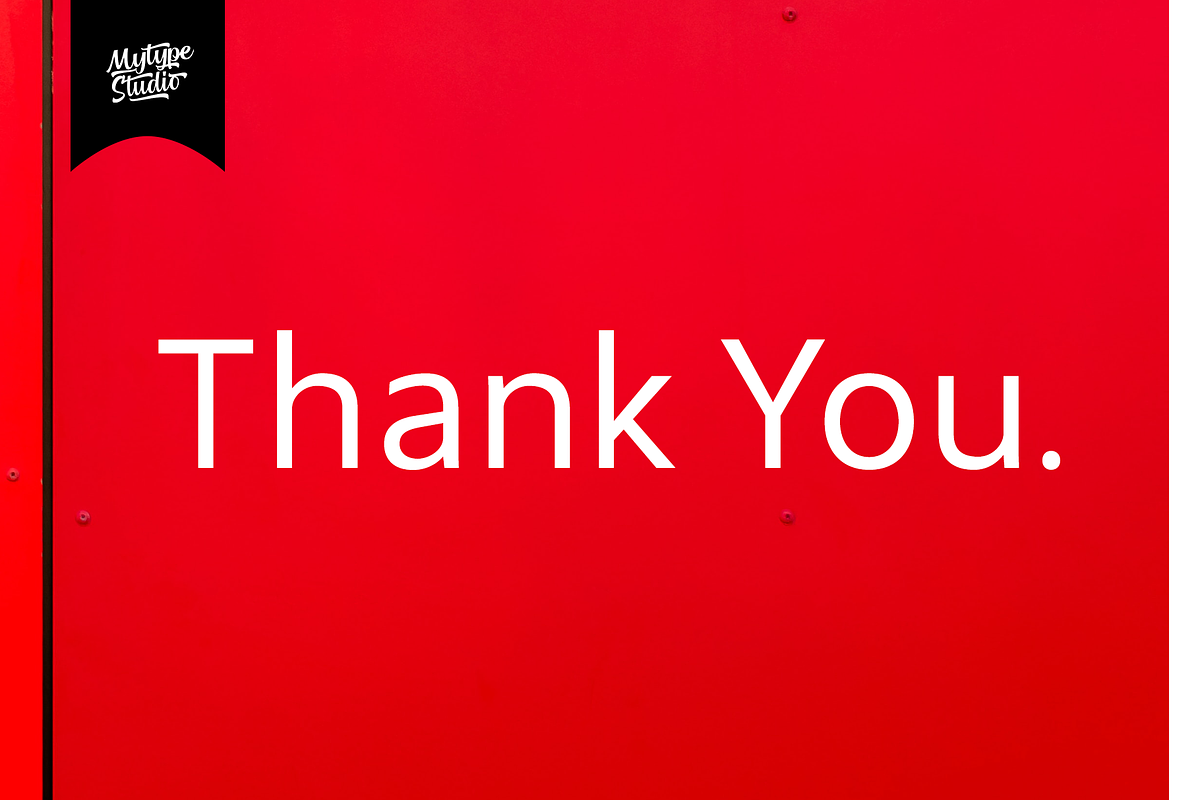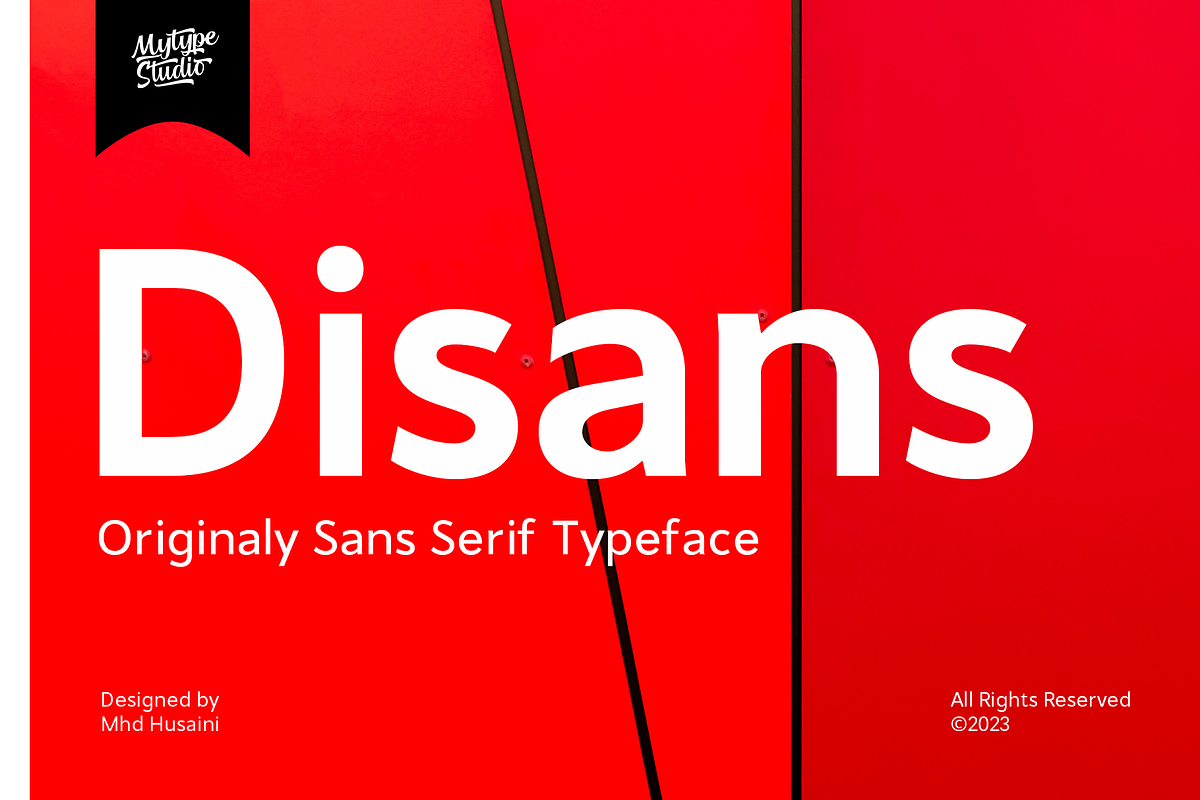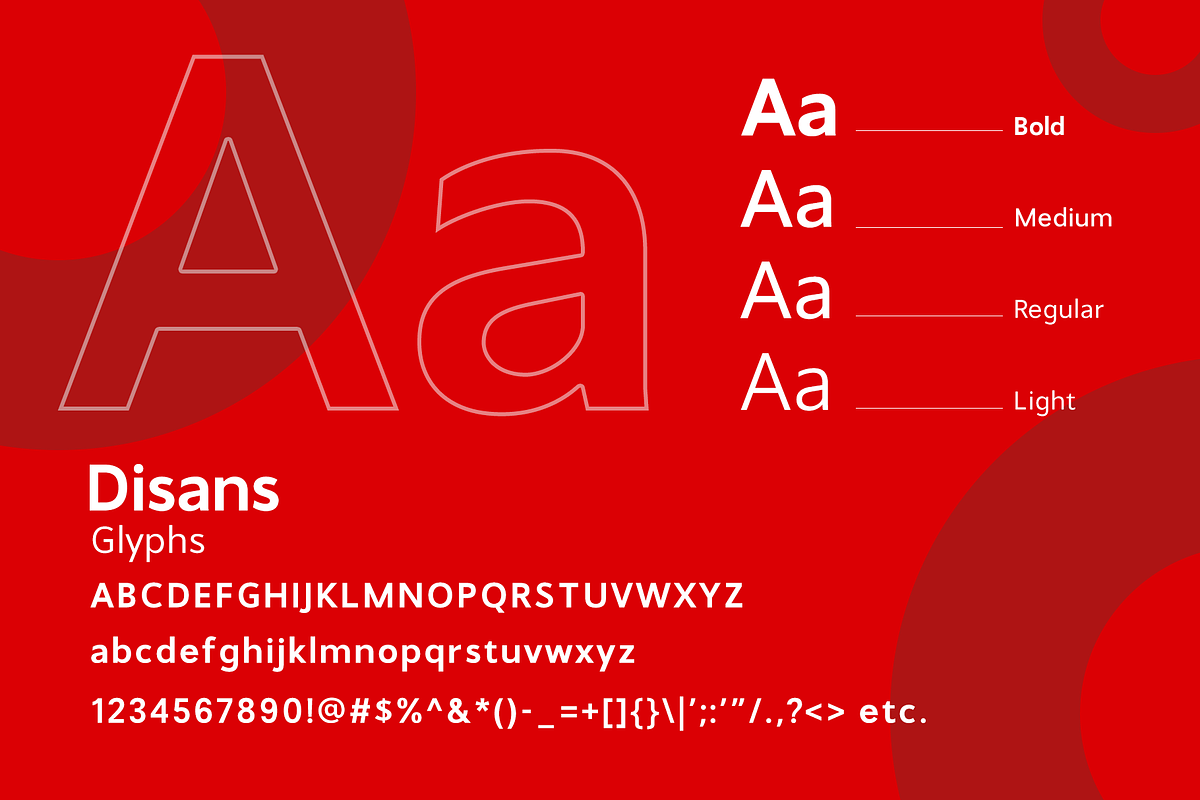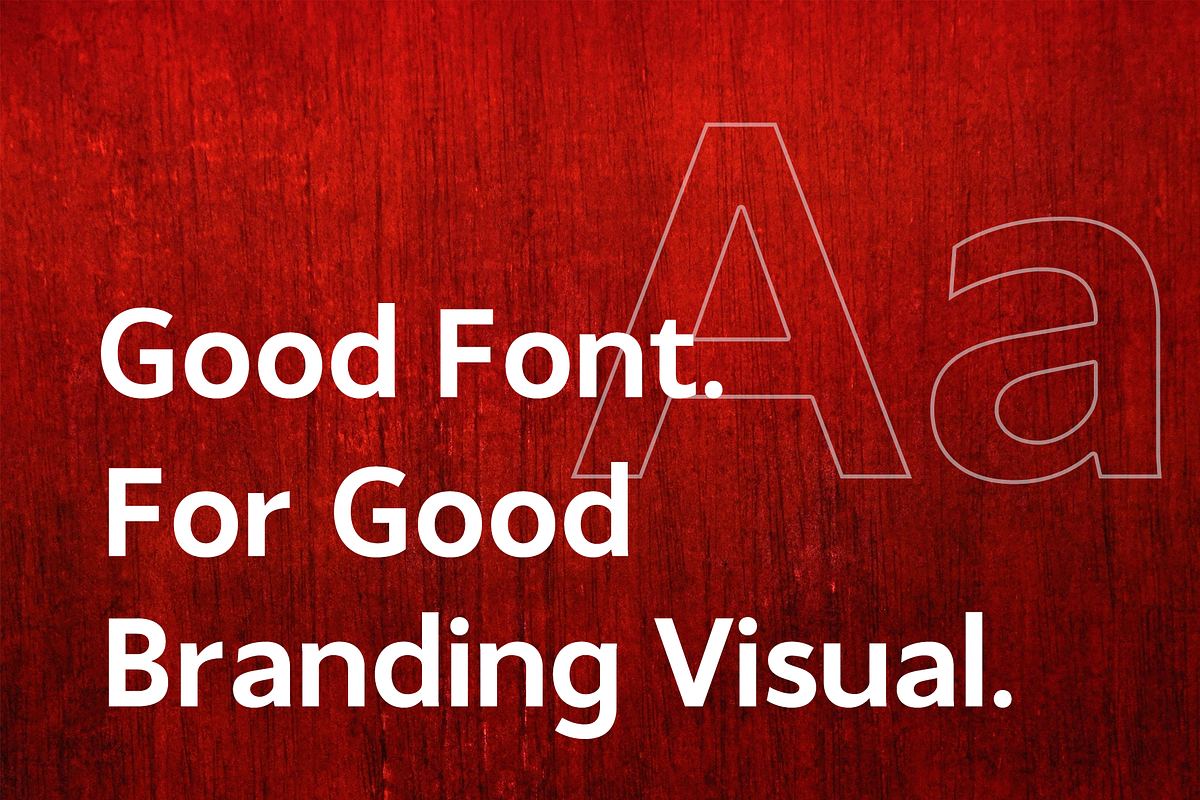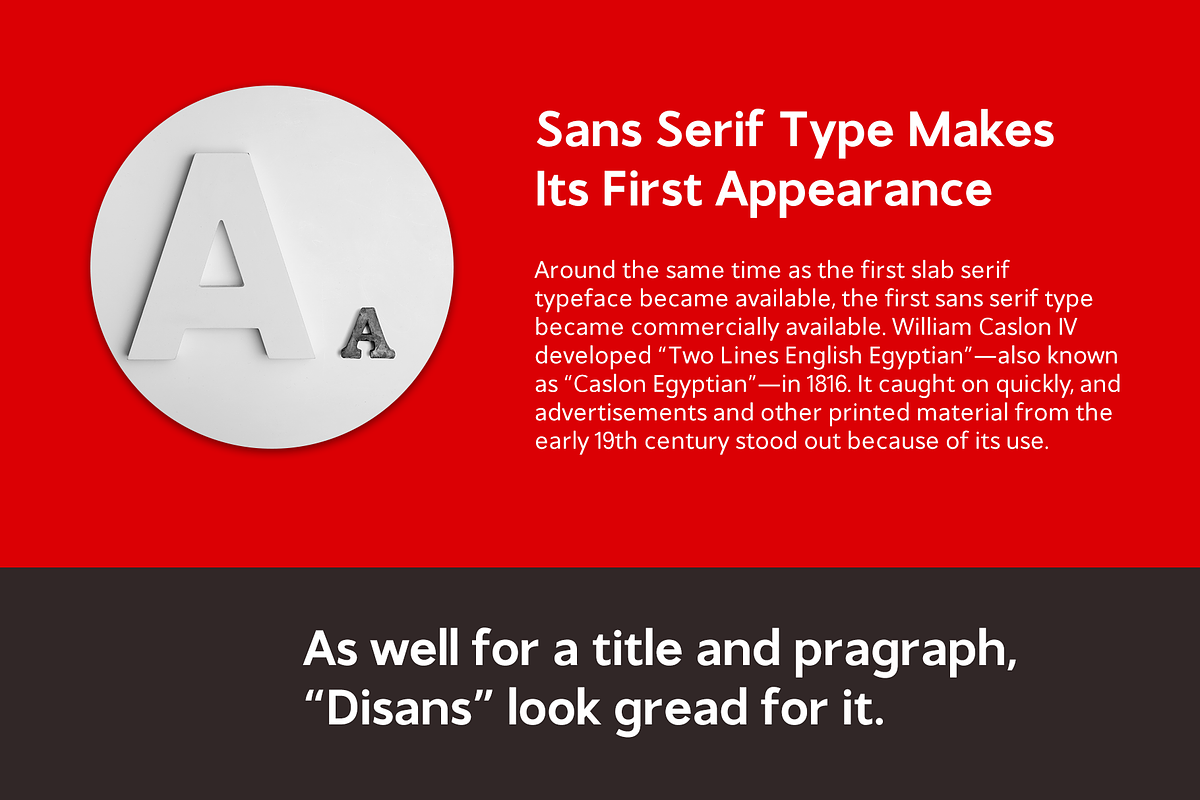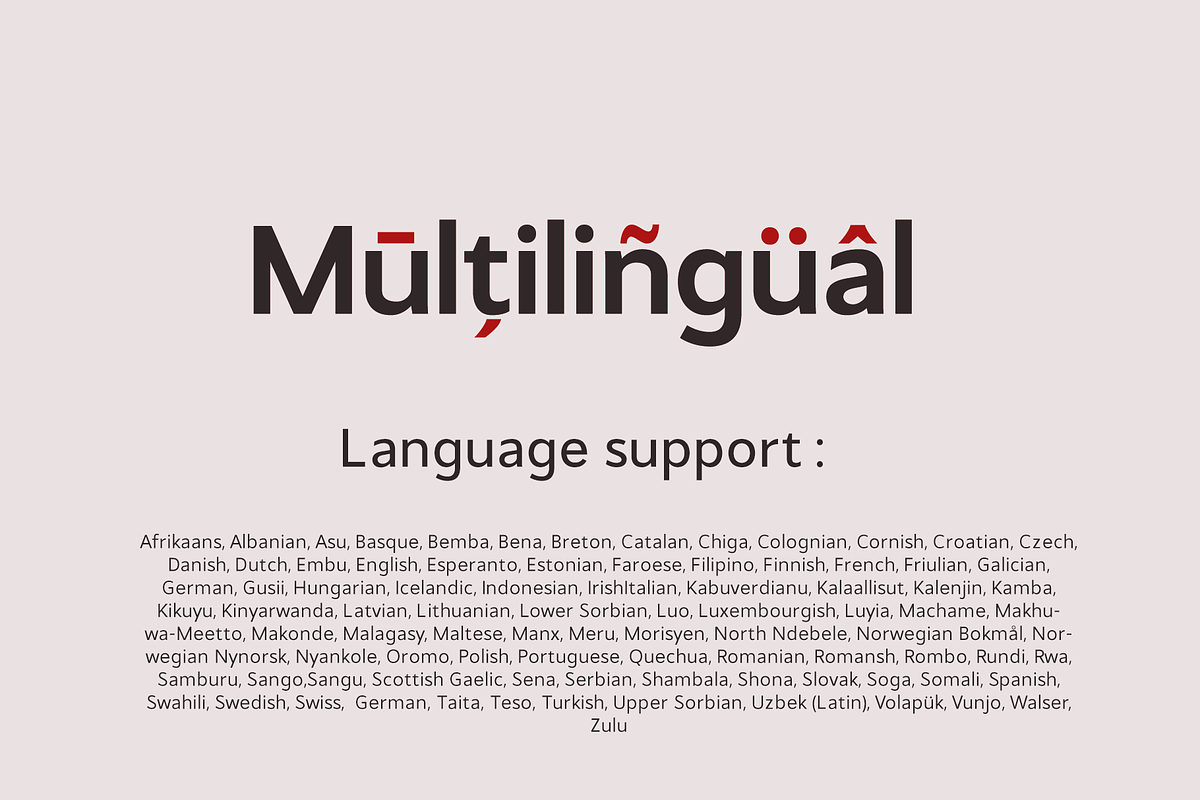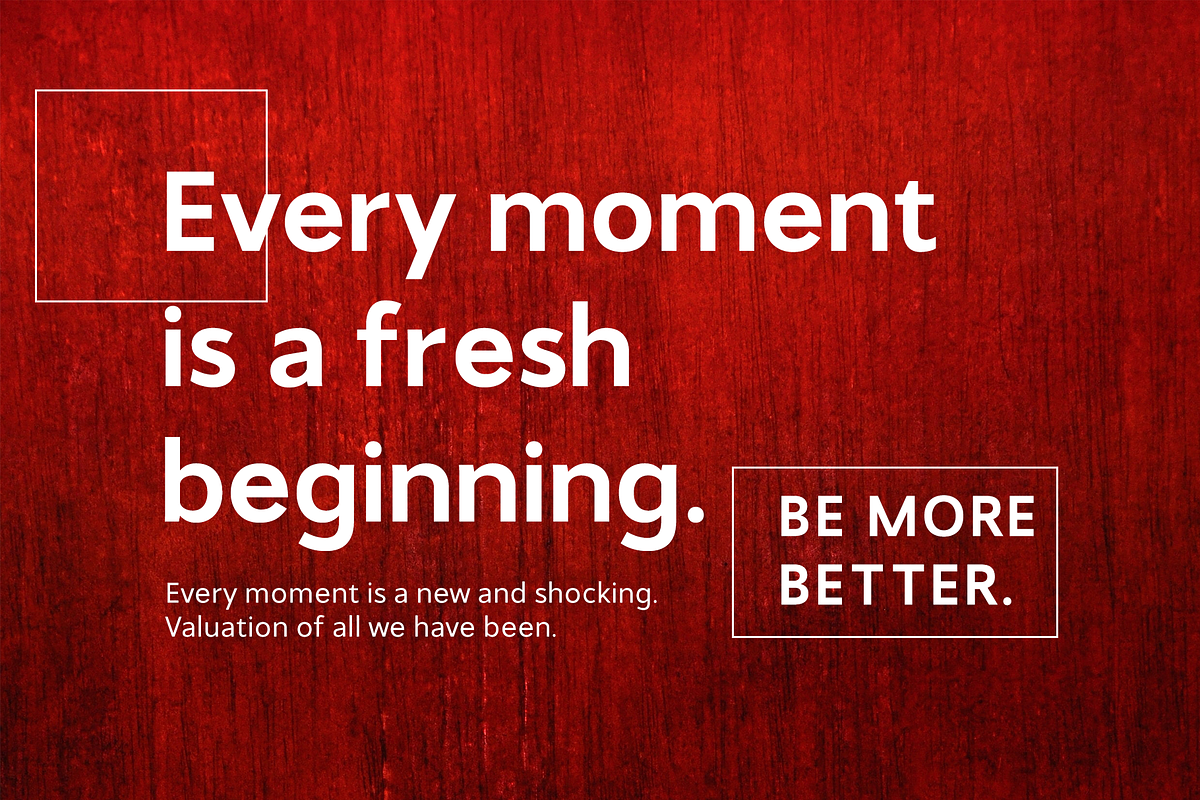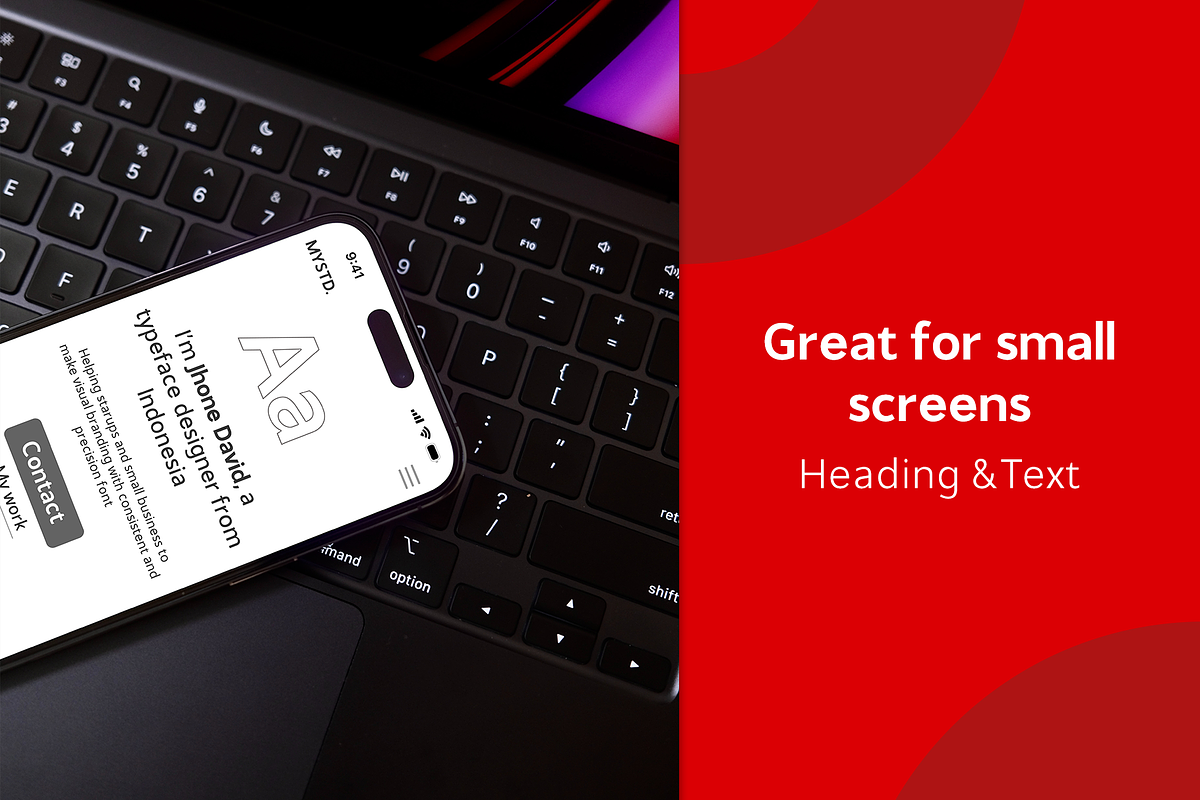
Disans - Sans Serif Typeface
Disans is collection font with natural movement make looks elegant, classy and beauty for your project. Disans is perfect for branding projects, logo, wedding designs, social media posts, advertisements, product packaging, product designs, label, photography, watermark, invitation, stationery and any projects